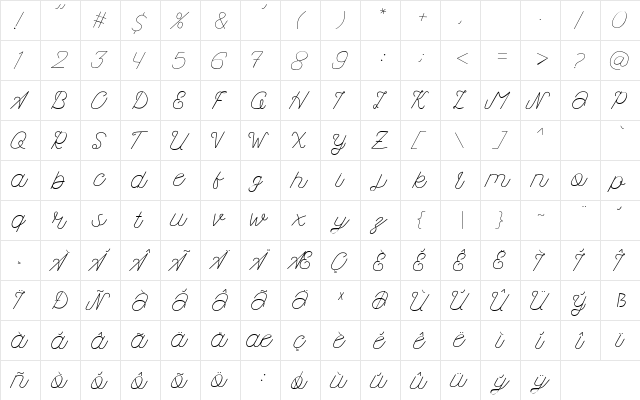
Kanuda Regular
Design Context for Kanuda Typeface
Kanuda is a composed and adaptable typeface that performs quietly and consistently across a wide range of design contexts.